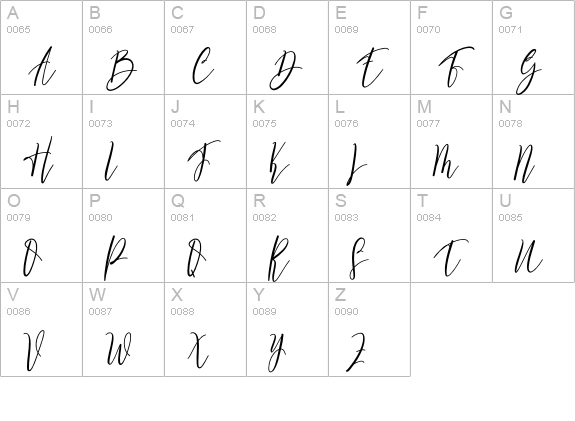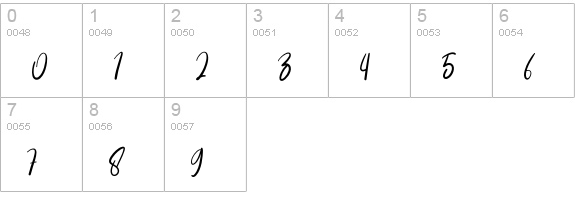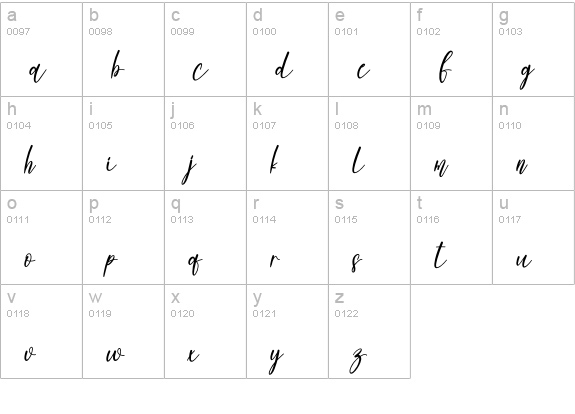
Butterfly2 Font Details
Butterfly2 is a free for personal use font in the Script > Handwritten category, designed by scratchones. It has been downloaded 80 times and is available for Windows, Mac and Linux.
Introducing Butterfly2 font, a whimsical and elegant typeface that will bring a touch of beauty to your designs. This stunning font features delicate curves and graceful lines that mimic the gentle flutter of a butterfly's wings. The Butterfly2 font is perfect for adding a touch of sophistication to your projects, whether you're designing invitations, logos, or social media graphics.